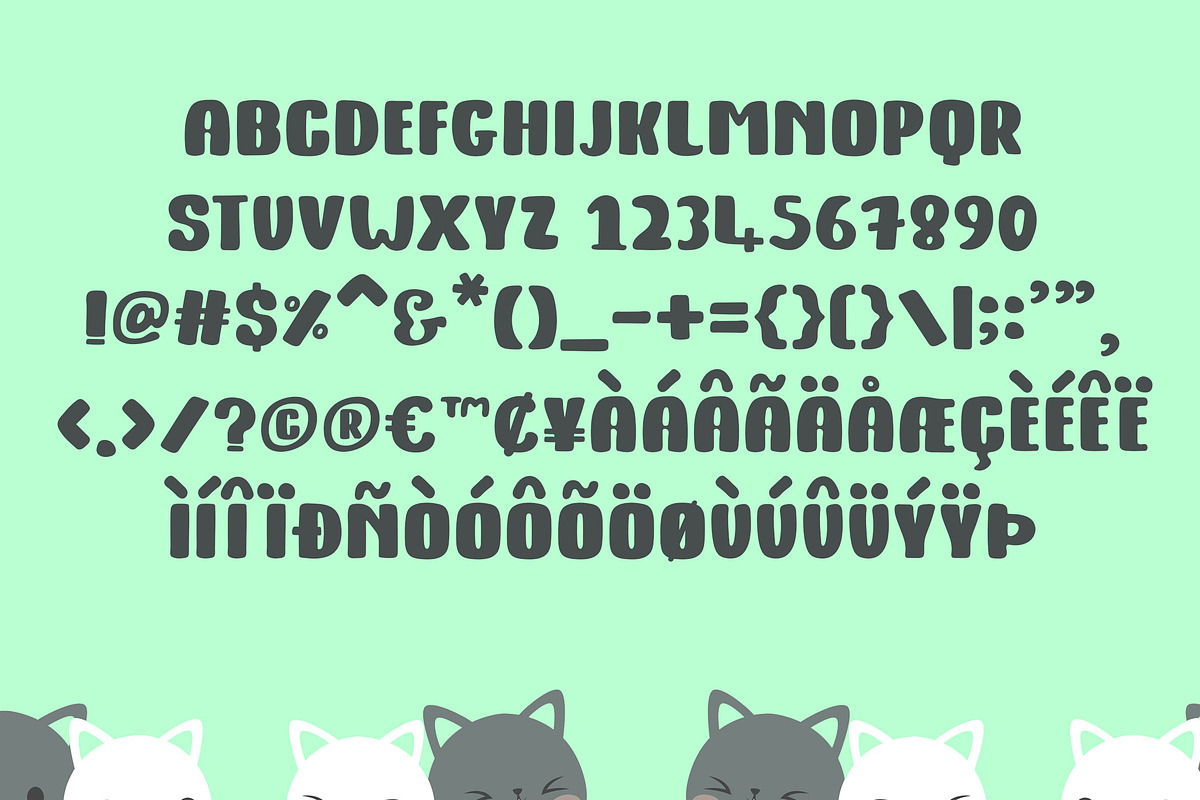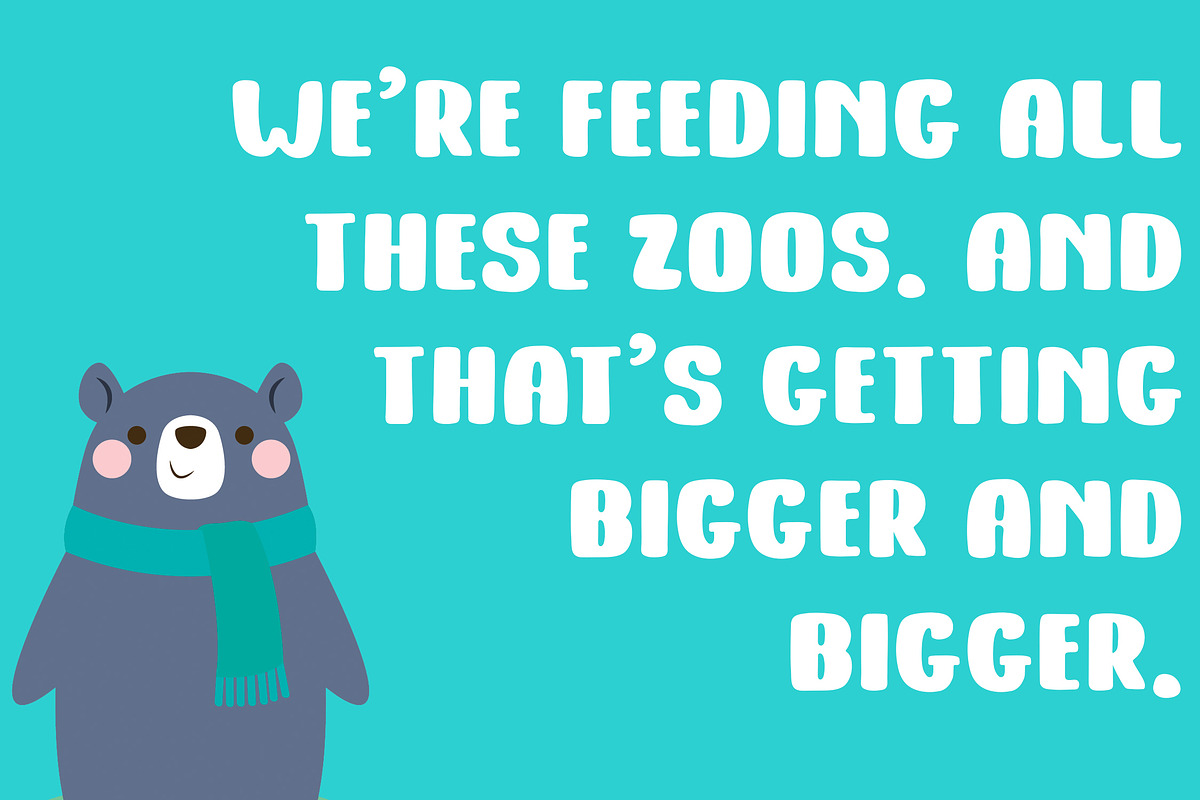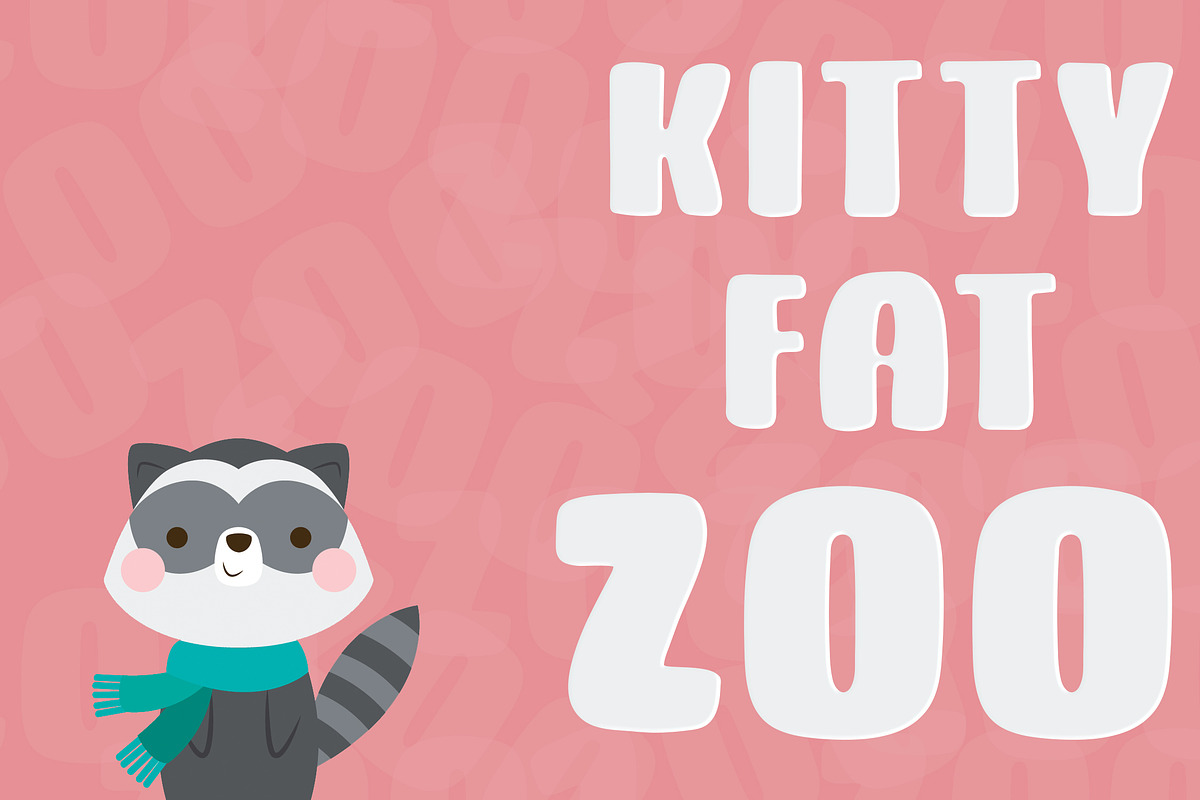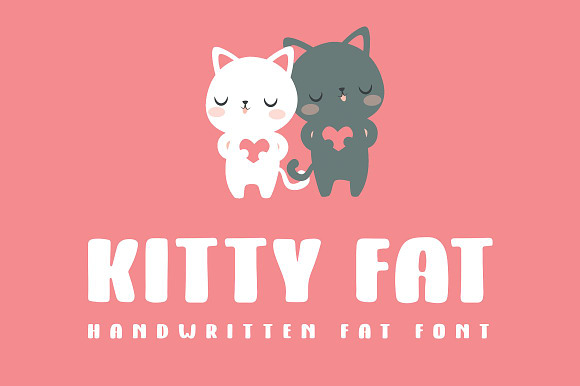
Kitty Fat - Handwritten Font
Kitty Fat is new handwritten bold font made with large brush pen. Bold and smooth fonts perfectly fits for kids and cartoon projects.
Punctuation’s and Multilingual characters.
- Included Uppercase, Numbers, Punctuation’s and Multilingual characters.
Kitty Fat - Handwritten Font by Dasagani fits naturally into Branding, posters, packaging, typography.